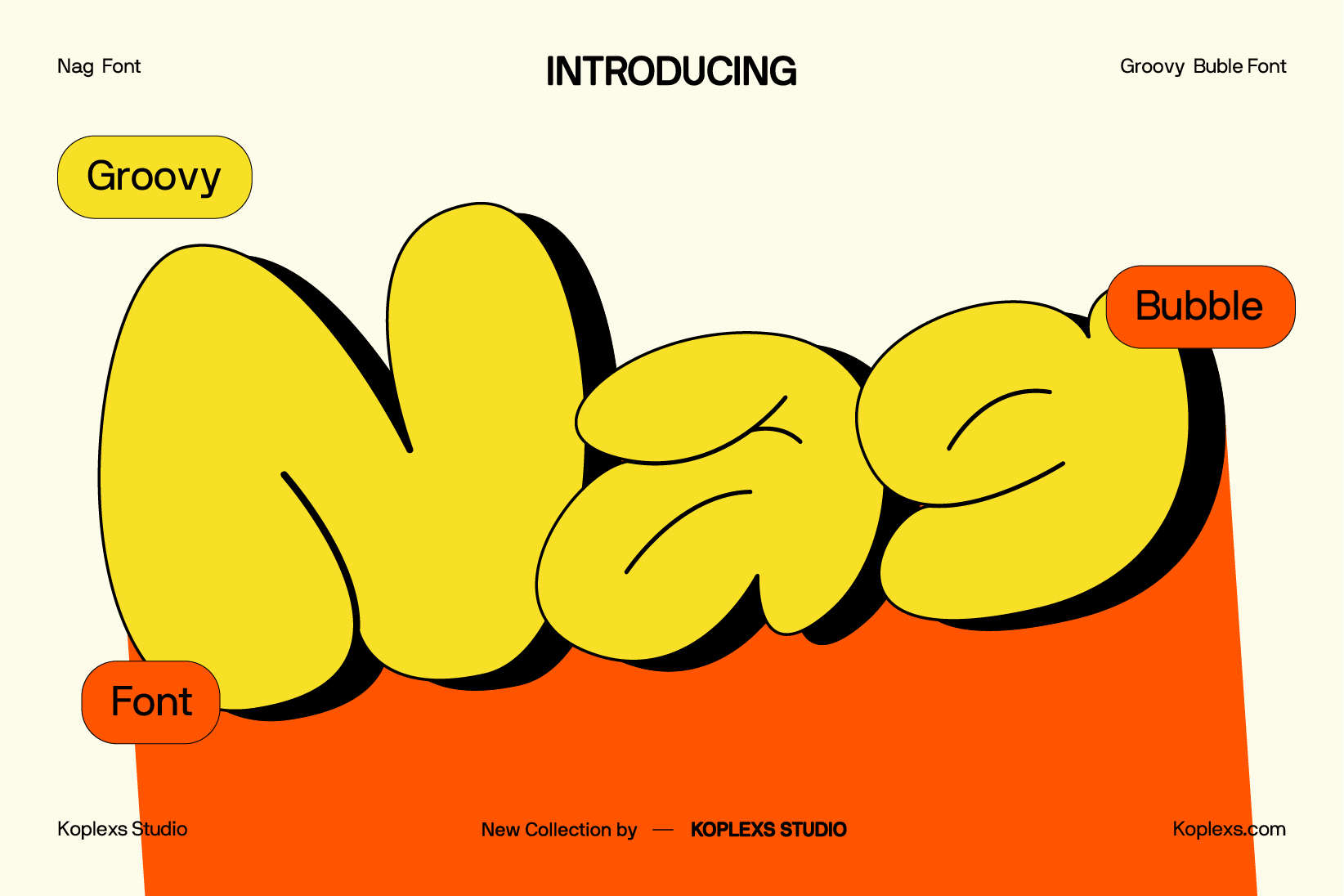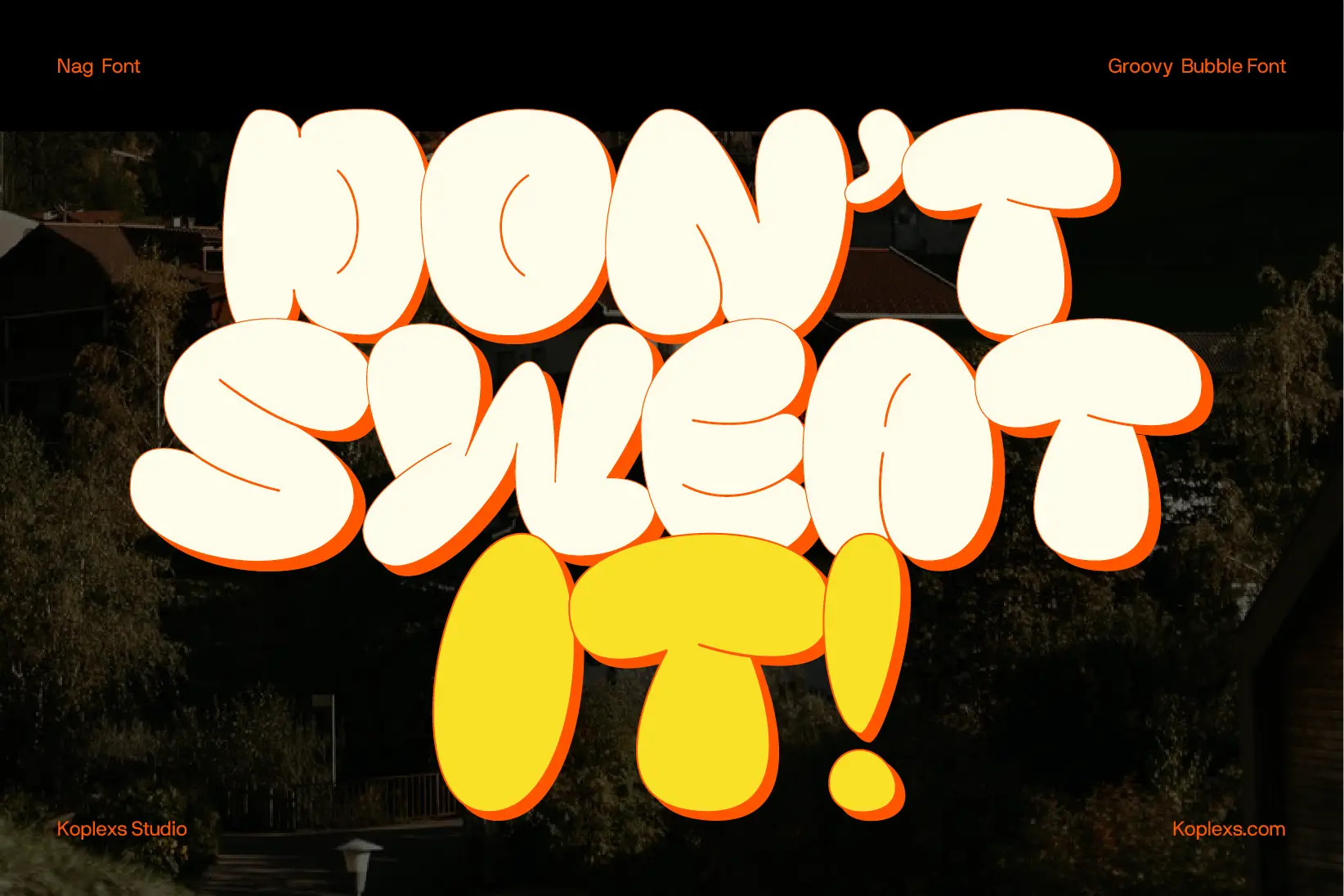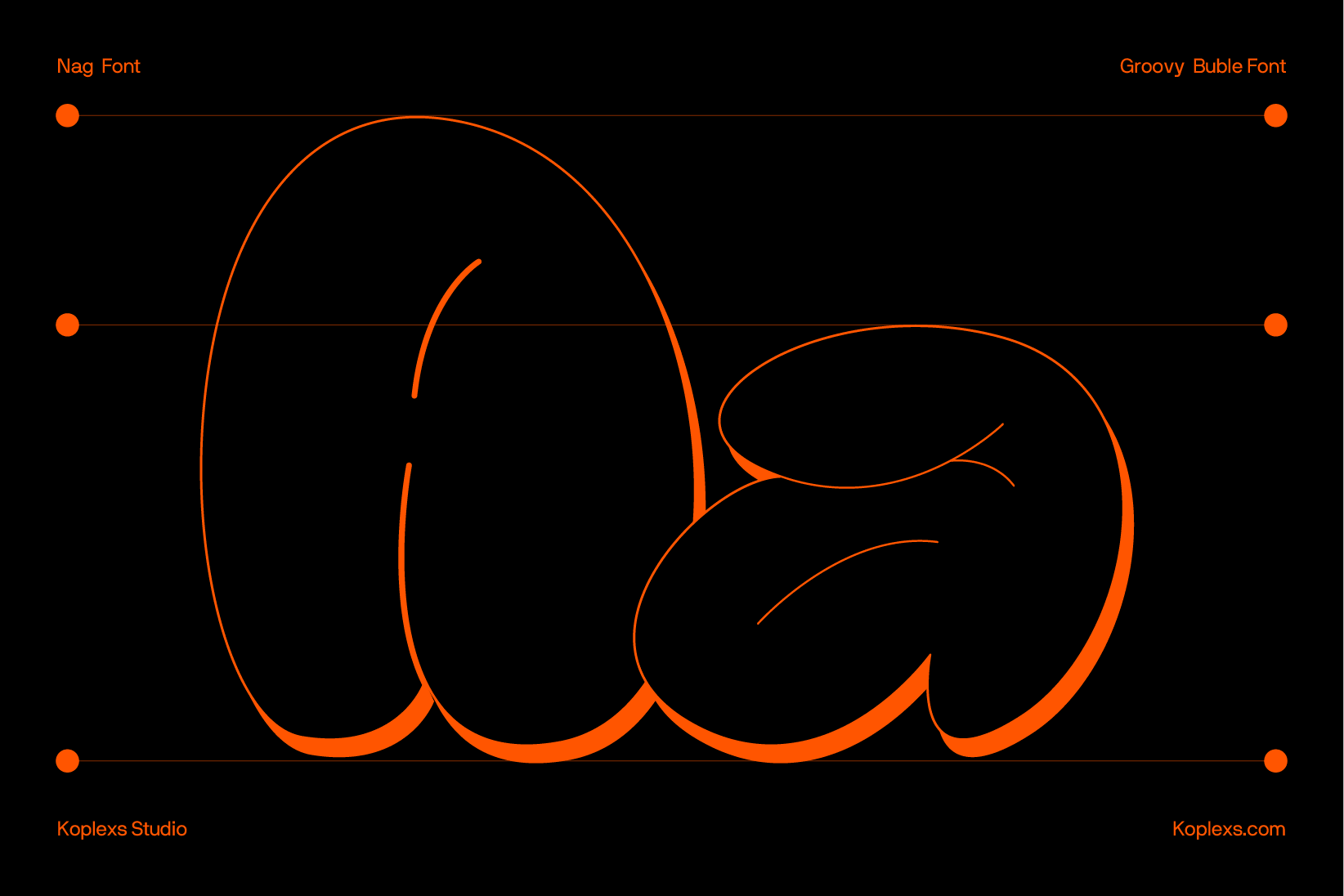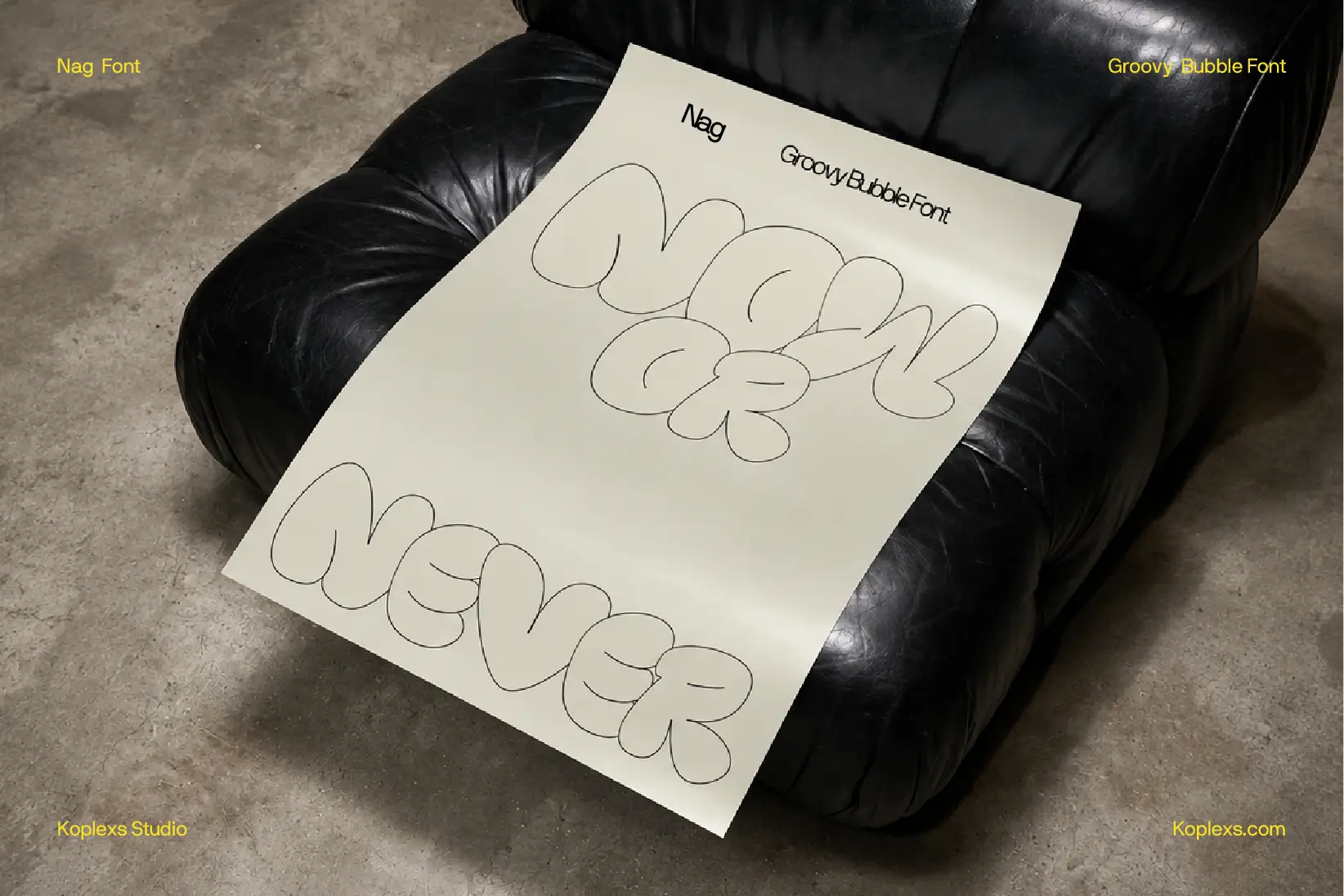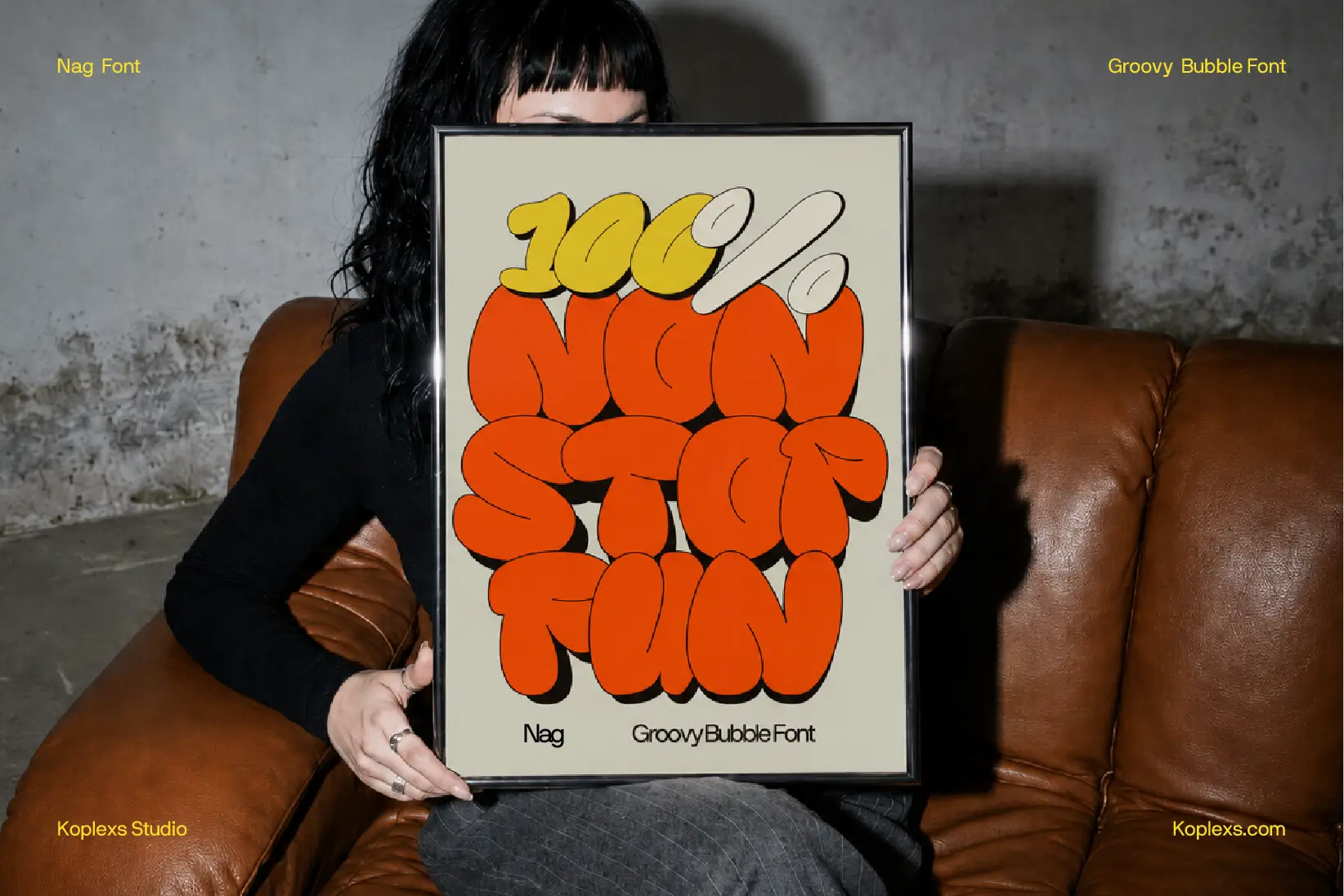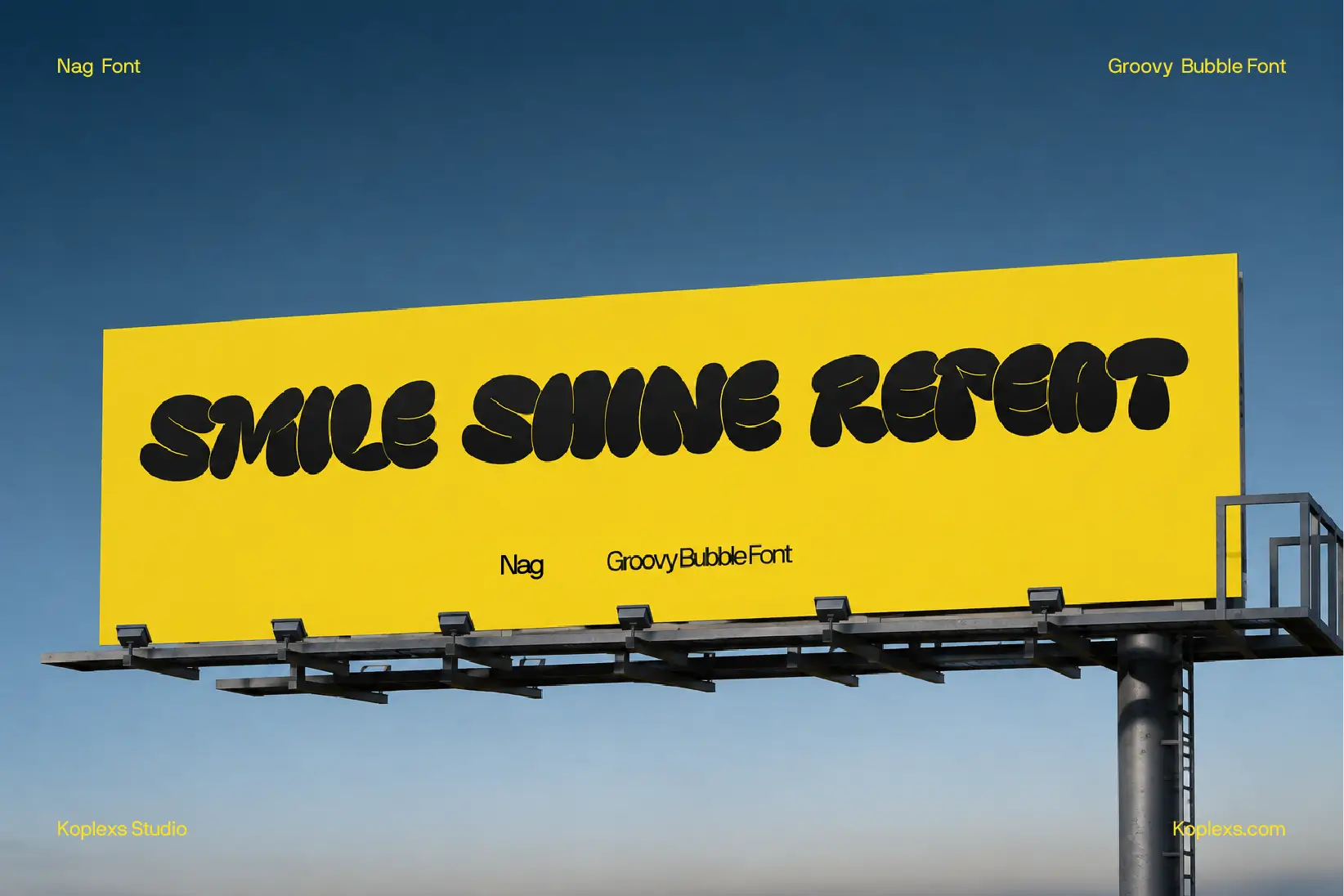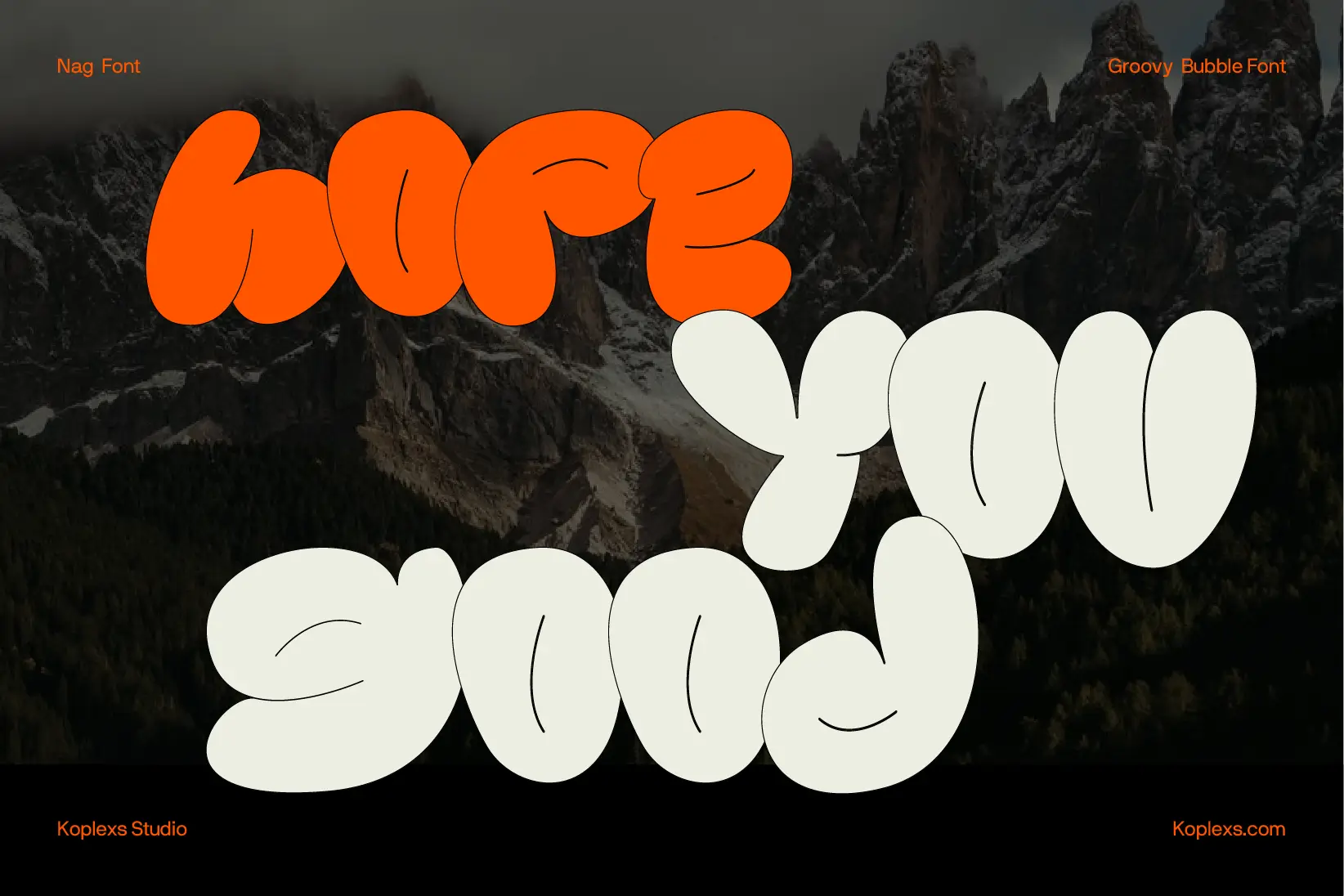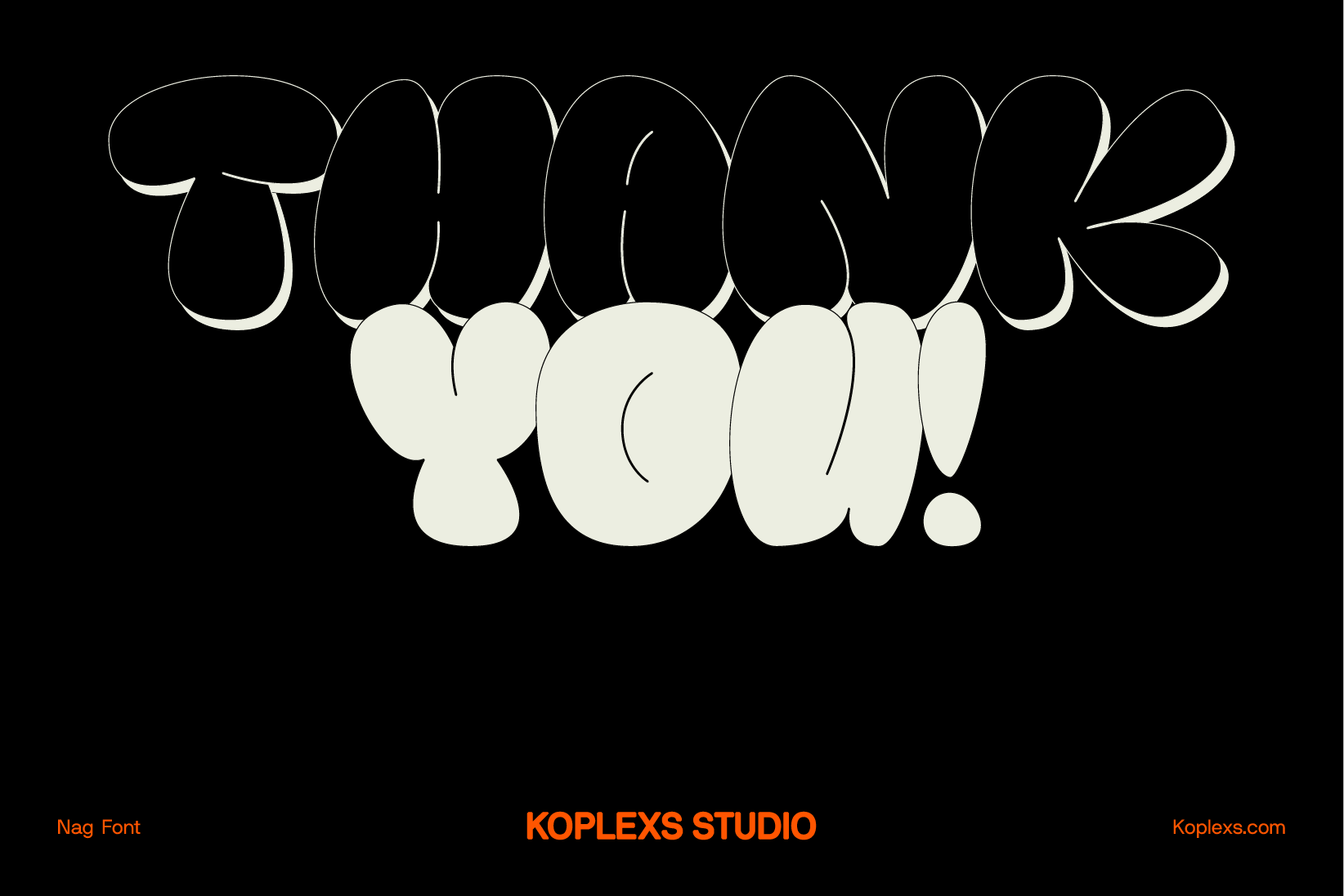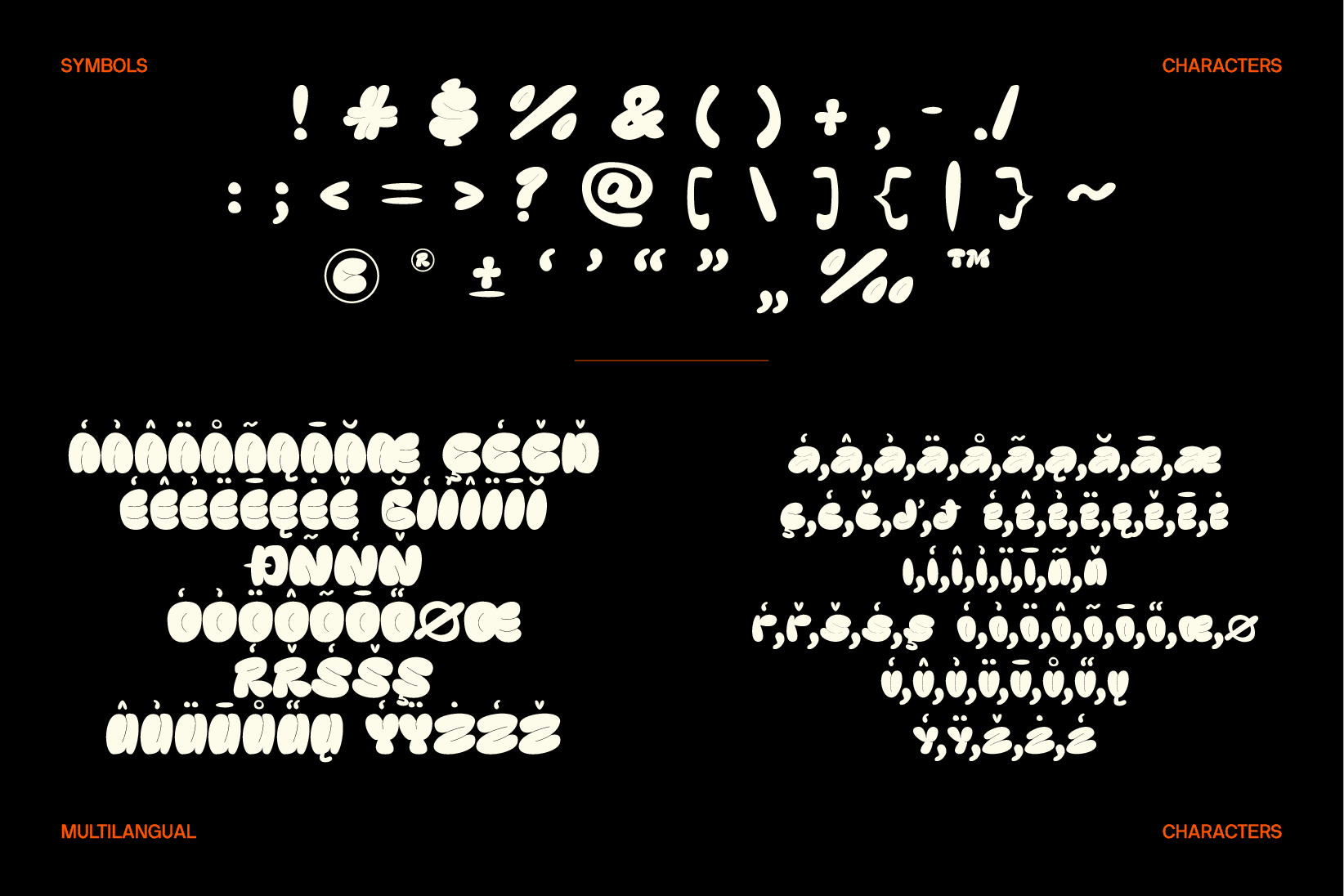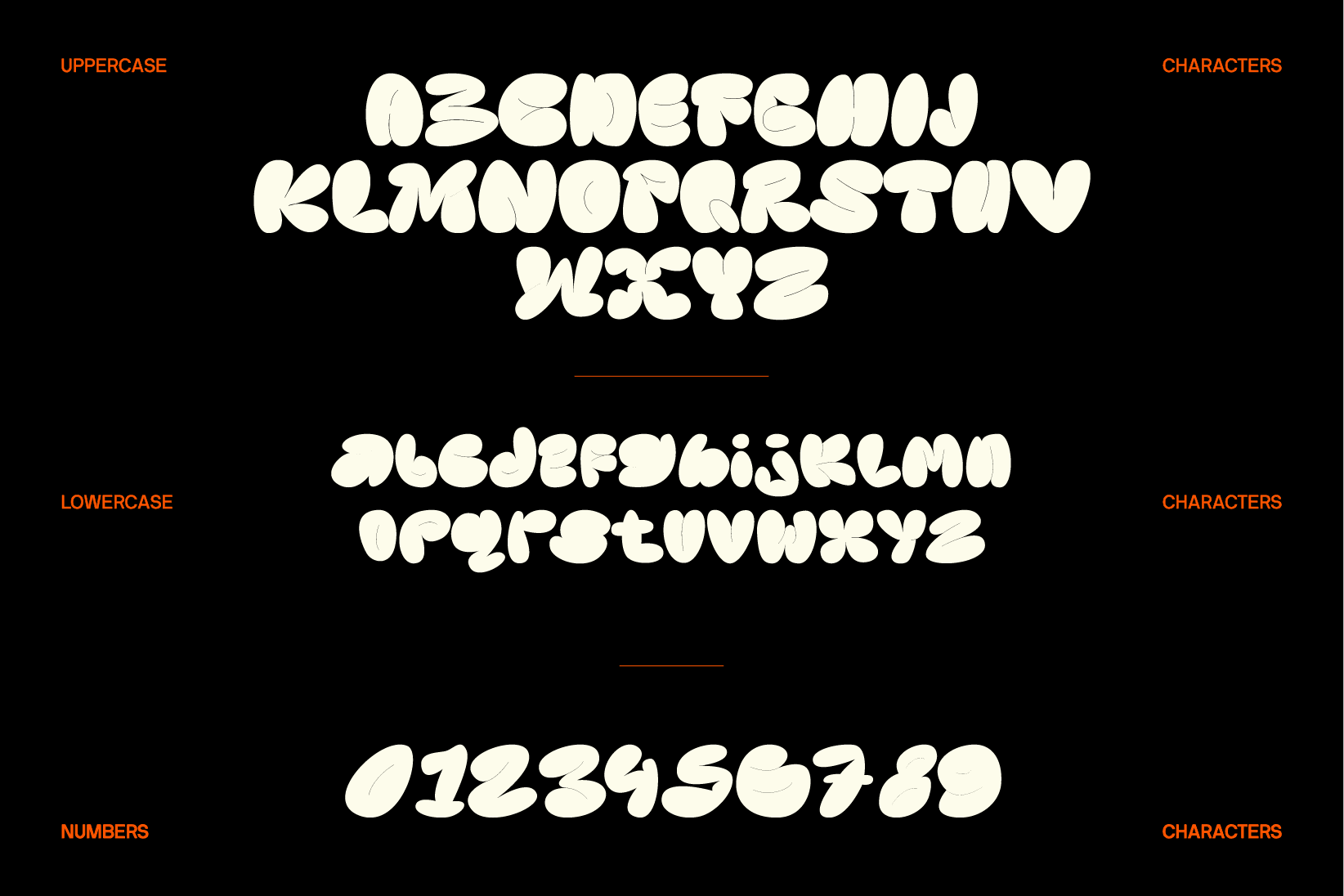
Nag Font | Retro Groovy Bubble Typeface
Nag Font is a retro groovy bubble font by Koplexs Studio. Its plump shapes, soft edges, and thin inner openings give short phrases a distinctive, inflated look.
The slightly irregular letterforms capture the playful character of groovy fonts. Set Nag large to make the most of its chunky curves and fine inner details.
Nag Font Perfect for :
- Posters, billboards, and campaign headlines.
- Brand wordmarks, packaging, and product labels.
- T-shirt graphics, tote bags, and stickers.
- Album covers and social media graphics.
Pair Nag with a simple sans serif for supporting text, giving the rounded letterforms room to stand out. For more expressive headline options, explore our display fonts collection.